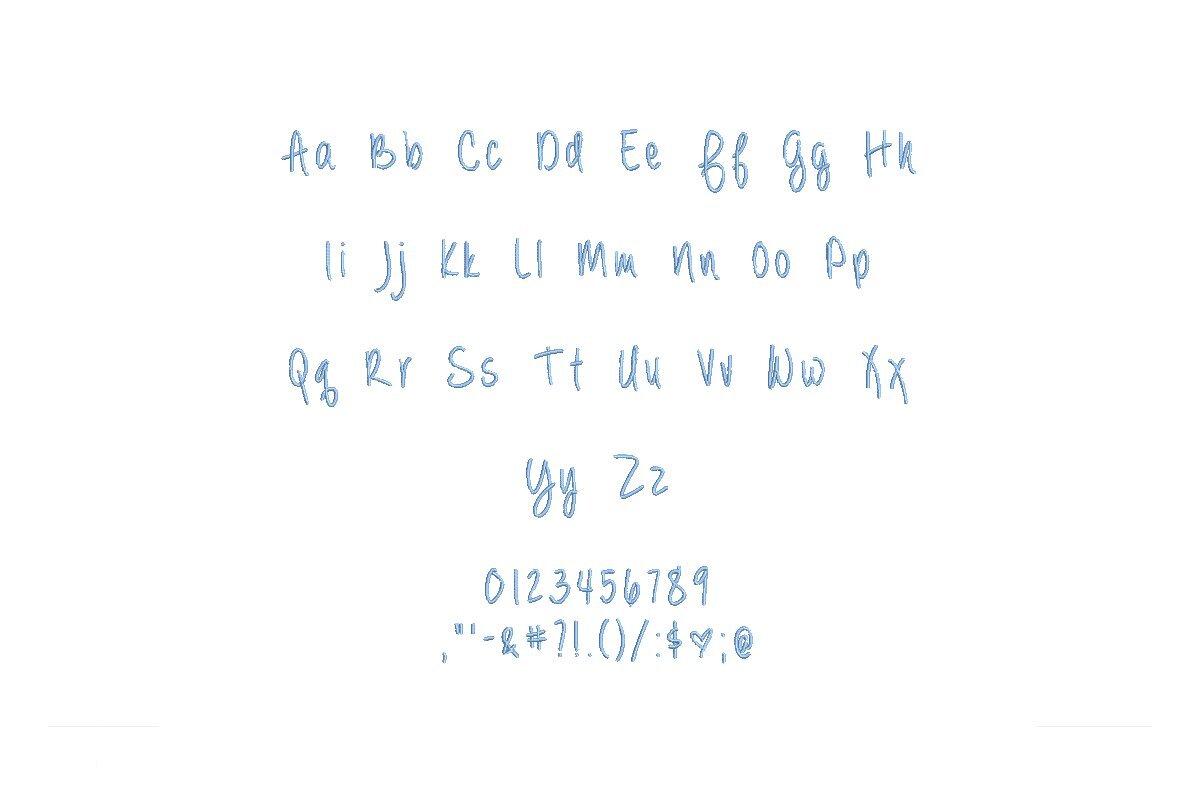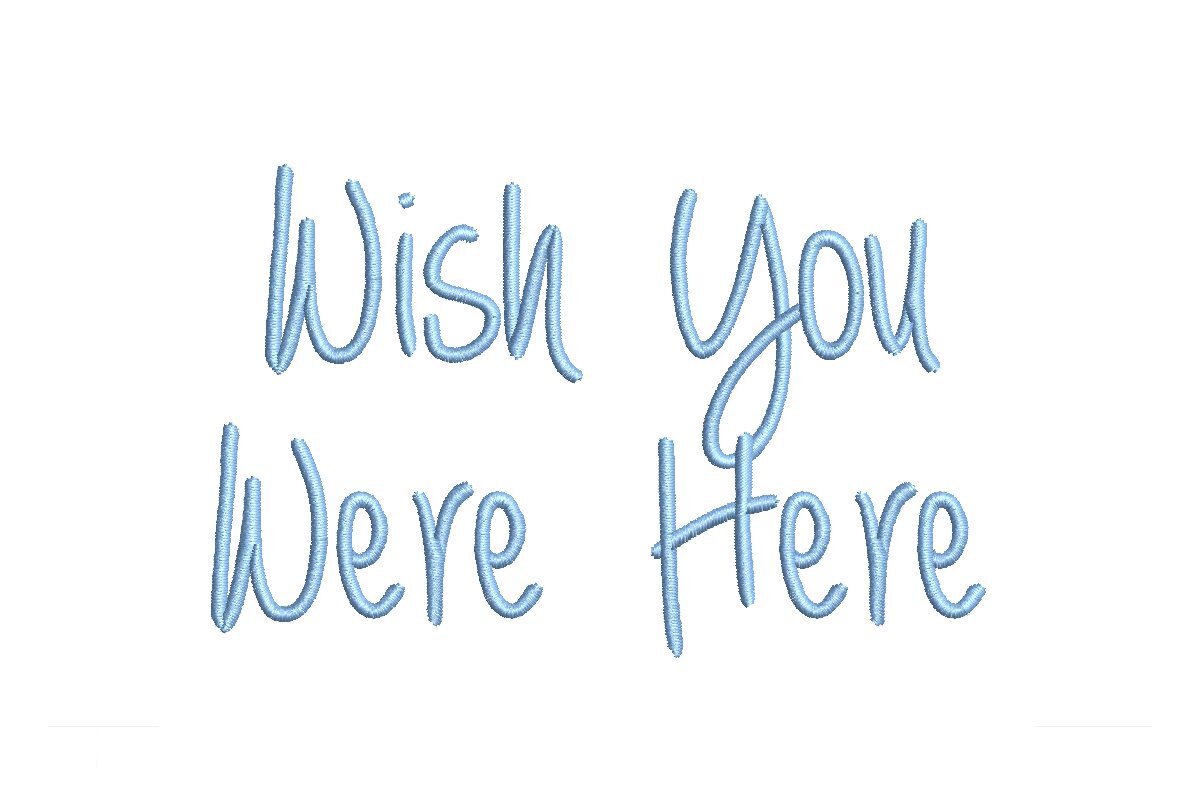
Wish You Were Here ESA Font
Introducing the Wish You Were Here ESA Font - Embroidery That Speaks to the Heart! Meticulously crafted for seamless compatibility with Wilcom Studio e4.5.6 and Hatch 3 versions and beyond, this font brings a touch of heartfelt sentiment to your designs. Whether you're a professional or a passionate enthusiast, Wish You Were Here ESA Font lets you convey emotions through embroidery. Seamlessly integrate it with the latest software, ensuring efficiency and precision in every stitch. Each design radiates the warmth of connection, making your projects deeply resonate. Don't miss the chance to add an emotional dimension to your collection with Wish You Were Here ESA Font. Begin your heartfelt embroidery journey today!